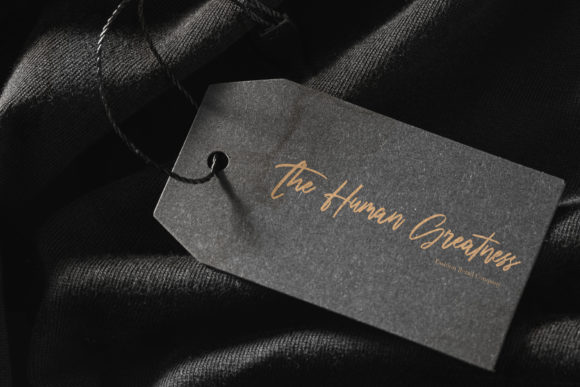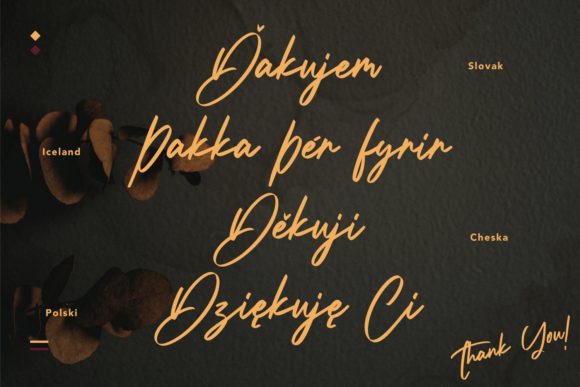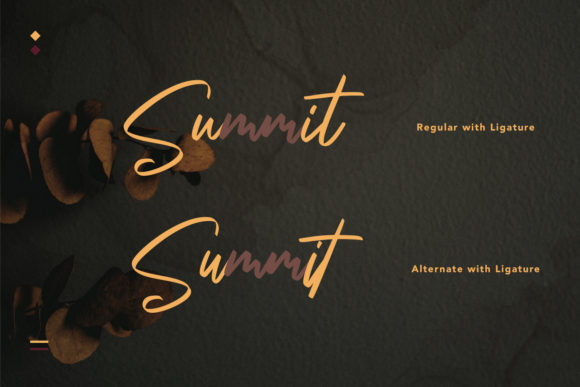
About Slotheryn Font
Slotheryn is a gorgeous and cursive handwritten font, crafted to give your headlines and logotype projects a stylish touch. This font reads as strong, confident, and dynamic and can add tons of nostalgic character to your designs.